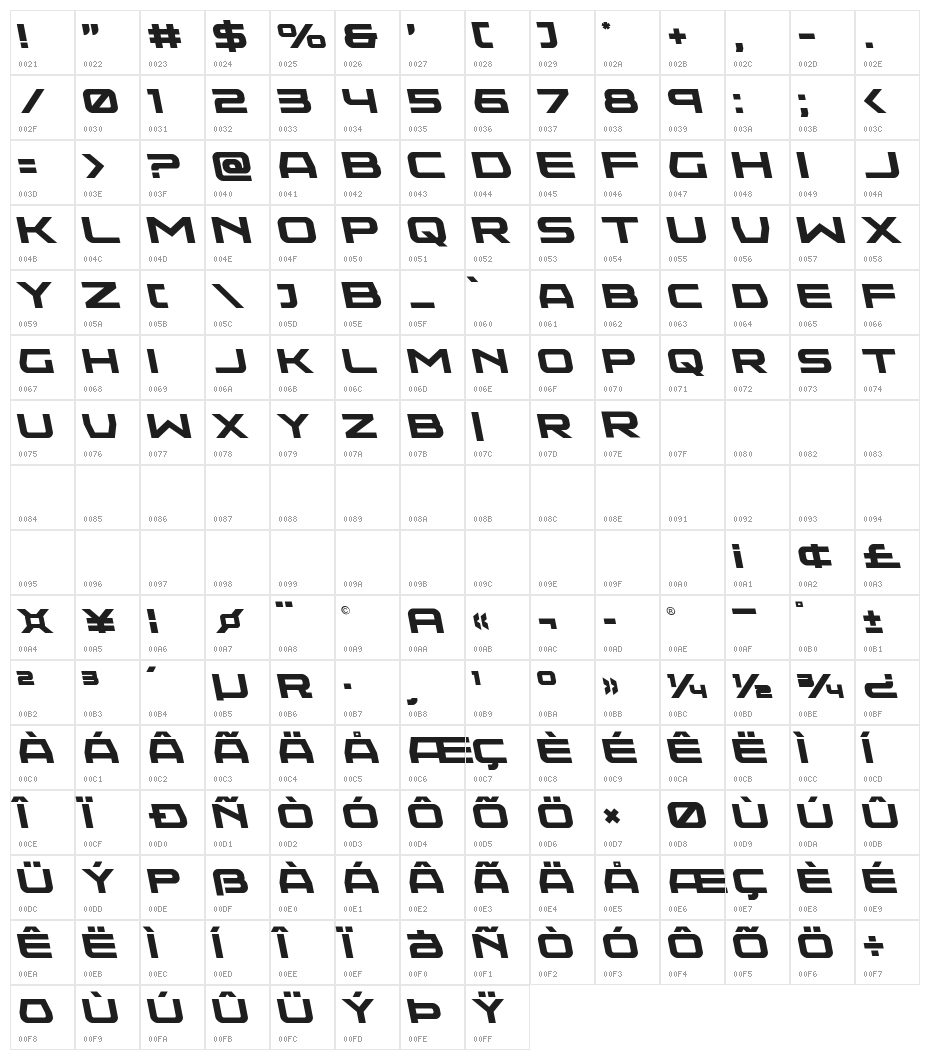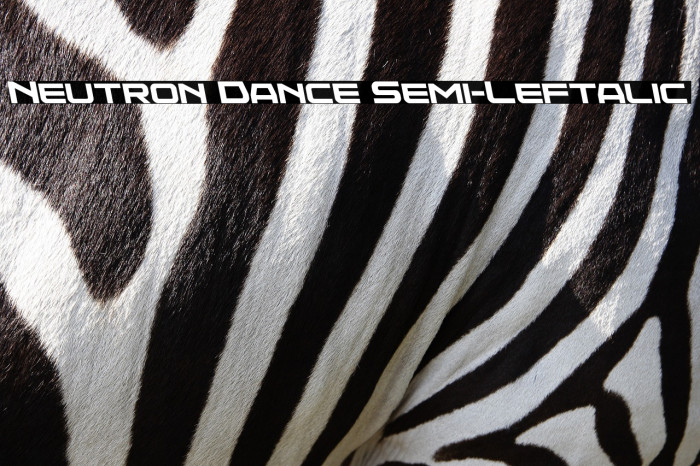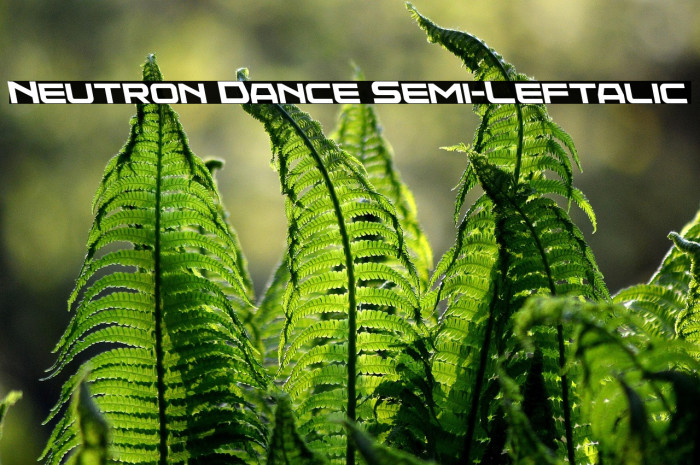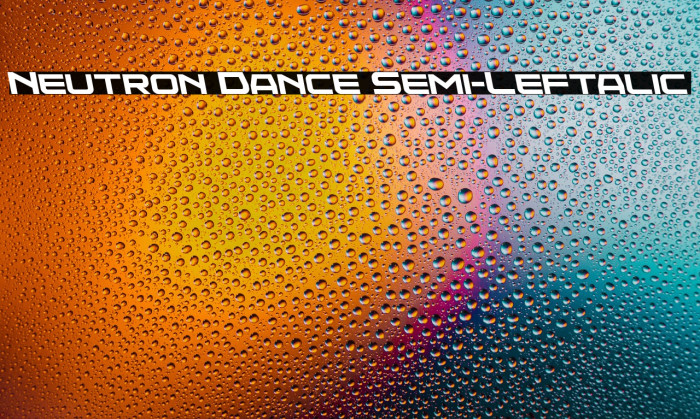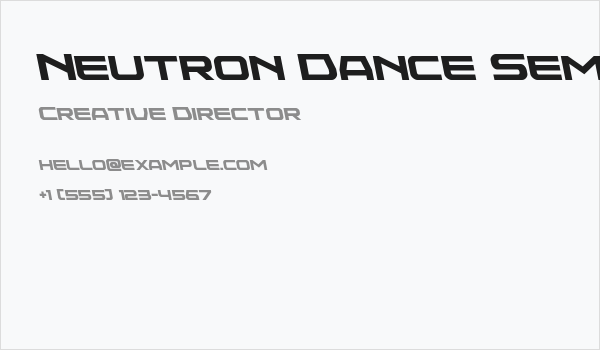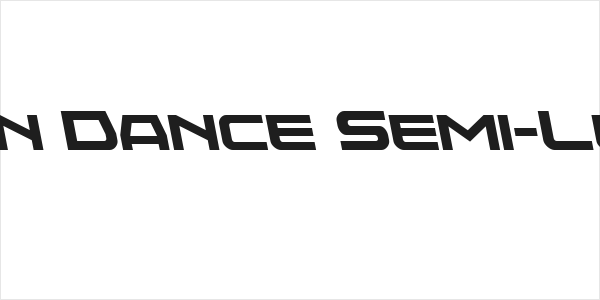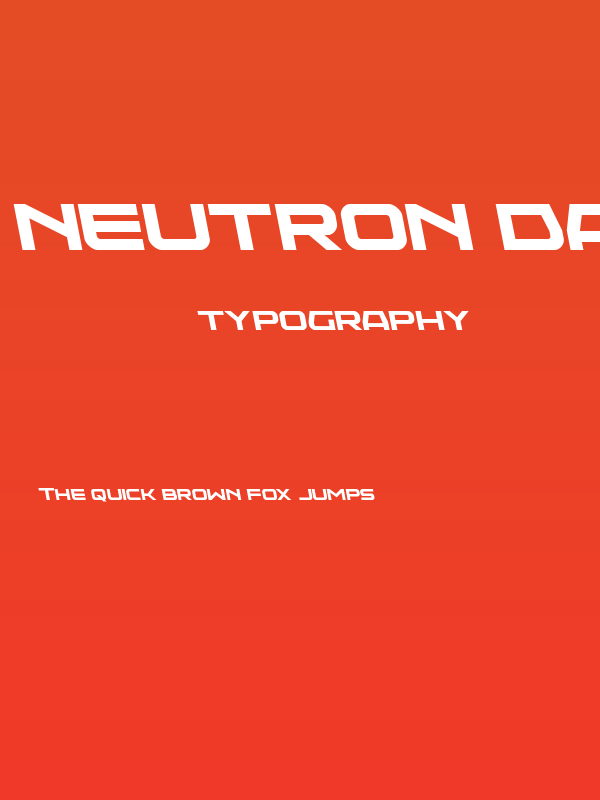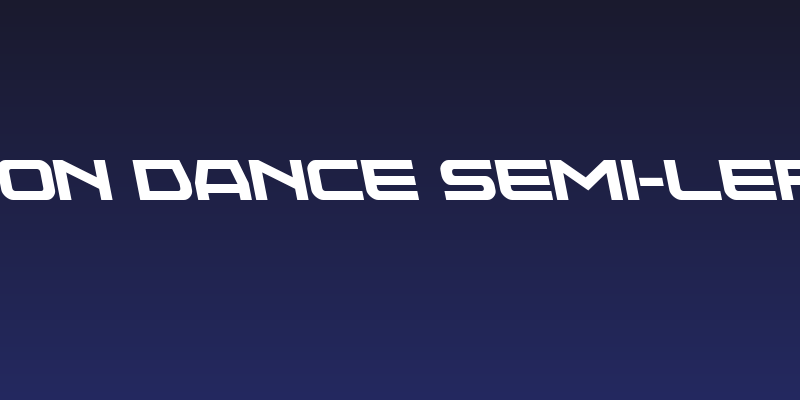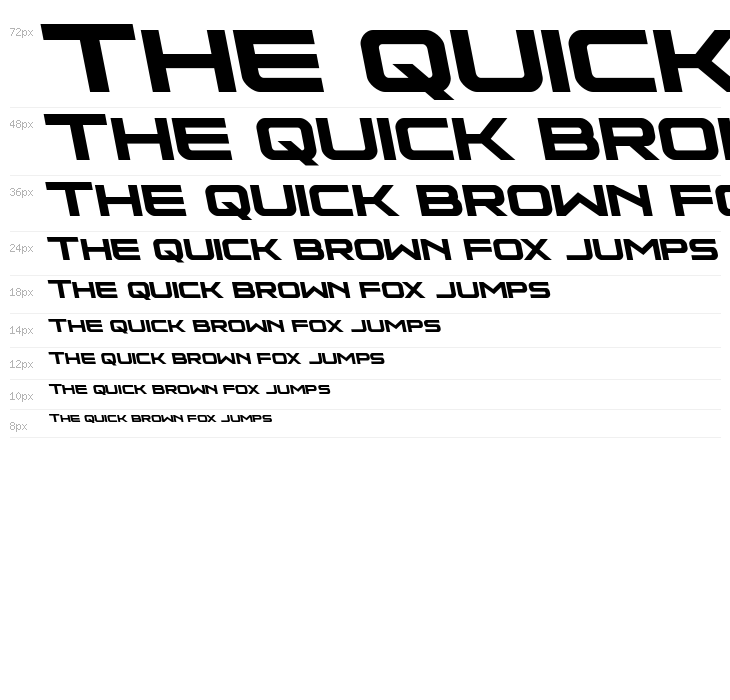
Neutron Dance Semi-Leftalic Font
Neutron Dance Semi-Leftalic Description
This font features a futuristic and angular design with a distinct slant to the left, giving it a dynamic and forward-moving appearance. The characters are bold and geometric, with sharp edges and a consistent stroke width that maintains a strong presence. The uppercase letters are particularly striking, with a uniform height and width that create a cohesive look. The numerals and special characters follow the same design principles, ensuring a harmonious overall style. This font is ideal for projects that require a modern and edgy aesthetic, such as technology branding, sci-fi themed designs, or innovative product packaging.
| Proposed Projects | Ideal for technology branding, sci-fi themes, and innovative product packaging. |